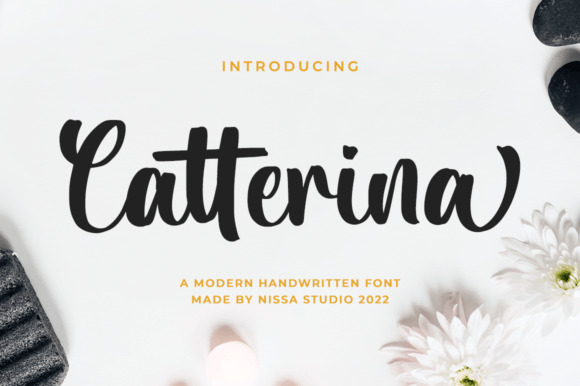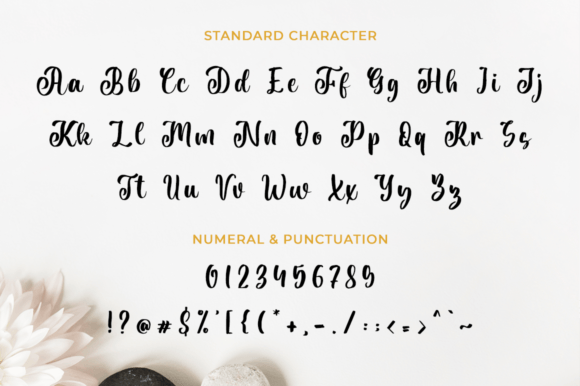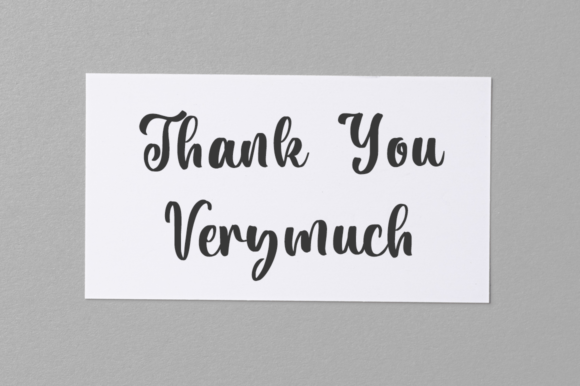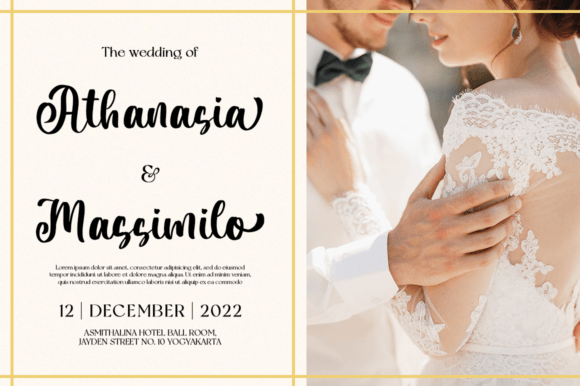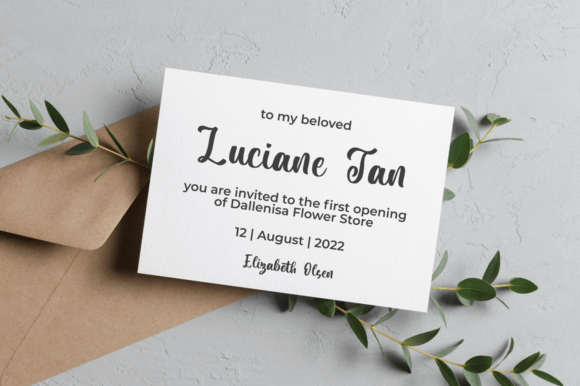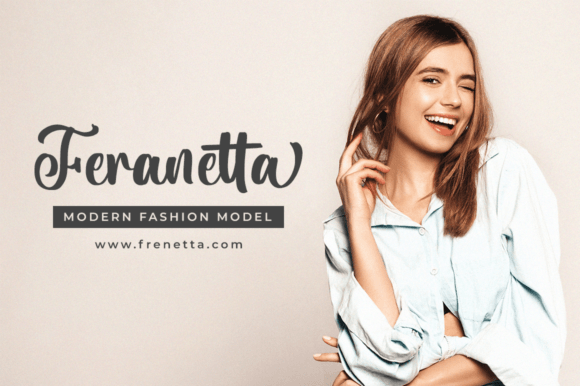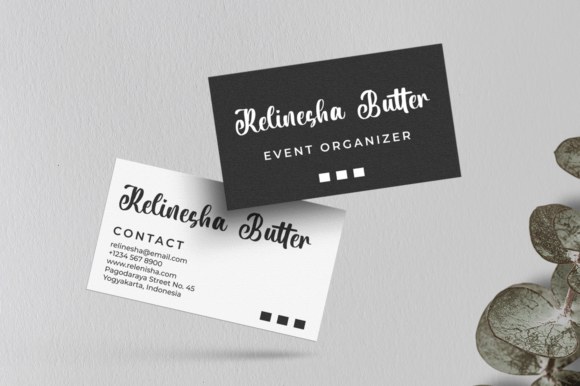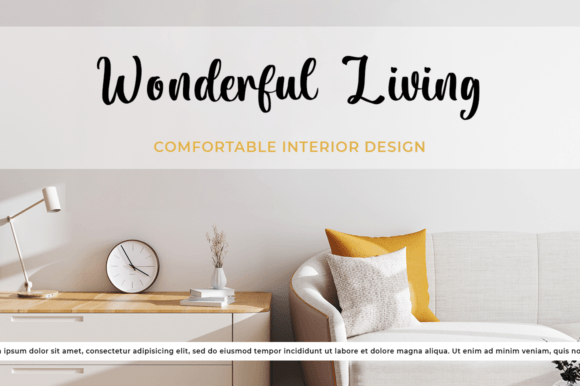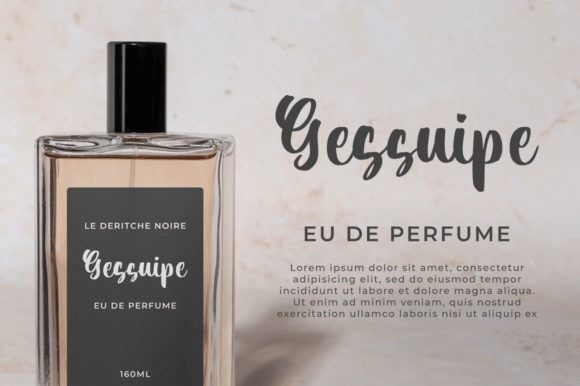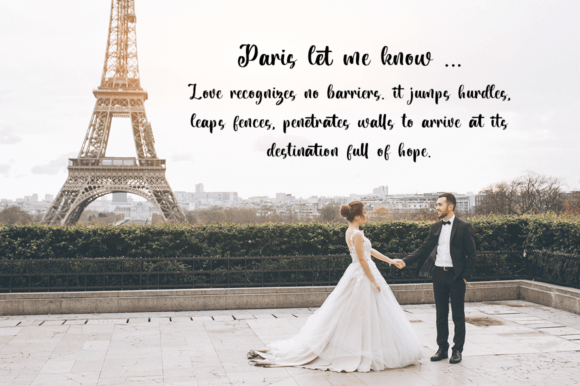
Catterina Font
About Catterina Font
Introducing Catterina, a lovely and delicate script font that radiates elegance and class. Designed for those seeking a beautiful and refreshing look for their designs, Catterina goes beyond conventional styles, providing a touch of sophistication. Notably, this font is PUA encoded, granting easy access to all the glyphs and swashes, enhancing its versatility and customization options.
The delicate script of Catterina adds a refined and charming quality to your text, making it perfect for a variety of creative applications. Whether you’re working on invitations, branding materials, or any other design project, Catterina adapts seamlessly, bringing a sense of loveliness that elevates your work.
Envision Catterina gracing your designs with its refreshing and delicate strokes. Picture it on elegant invitations, where it adds a touch of sophistication to the occasion. See it in branding materials, imparting a beautiful and memorable quality to your brand identity.
In summary, Catterina is more than just a font; it’s a versatile and sophisticated design tool. With PUA encoding, you can effortlessly access all the glyphs and swashes, allowing you to customize and personalize your designs with ease. Let Catterina be the choice that infuses your designs with a lovely and refreshing look, making them stand out with grace and style.